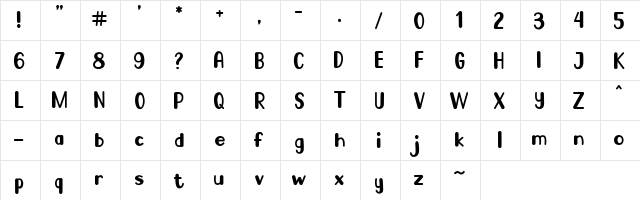
Go Frog Regular
| Foundry | Polah |
| Designer | Polah |
Design Context for Go Frog Typeface
Go Frog takes a measured approach to typography — its balanced proportions and neutral character make it a reliable workhorse for both digital and print work.